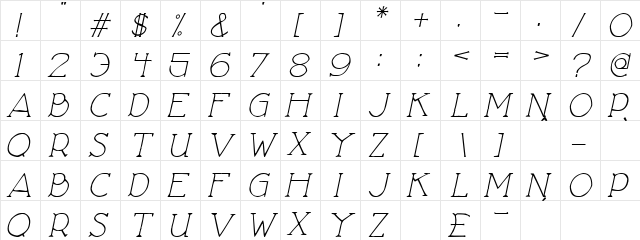
Love Nature Italic Font Preview
Love Nature Italic
Love Nature Italic Font Details
| Designer | Joseph Dawson |
Design Context for Love Nature Typeface
Love Nature takes a measured approach to typography — its balanced proportions and neutral character make it a reliable workhorse for both digital and print work. The slanted form adds forward momentum and visual energy.
Pro Tip: Use Love Nature for emphasis, pull quotes, and subheadings where its slanted energy can add rhythm to the layout.